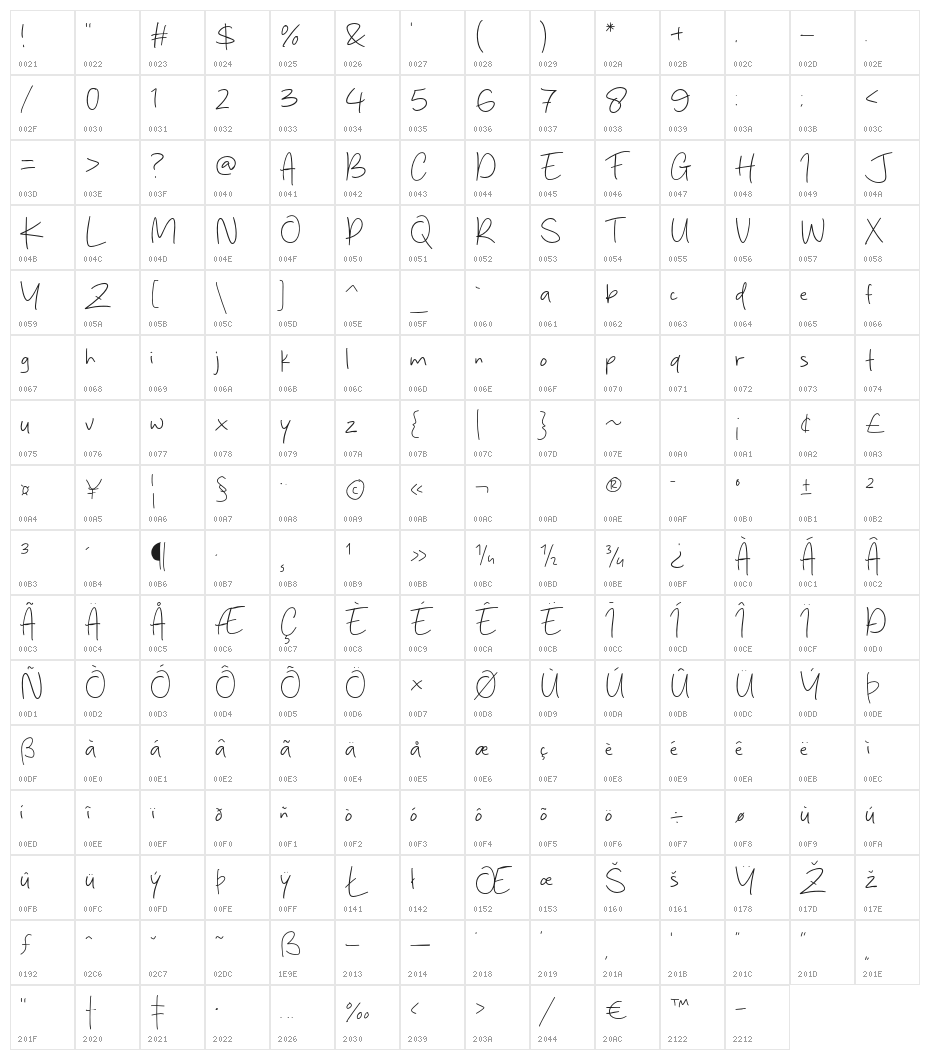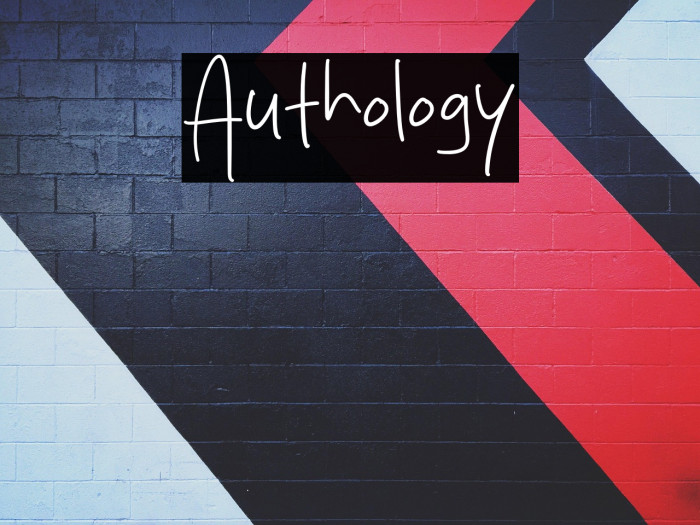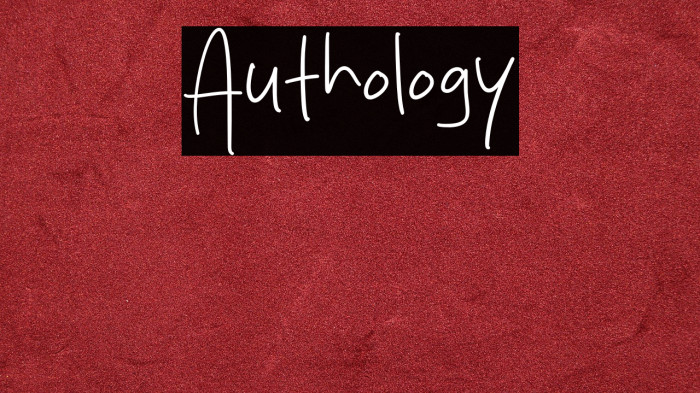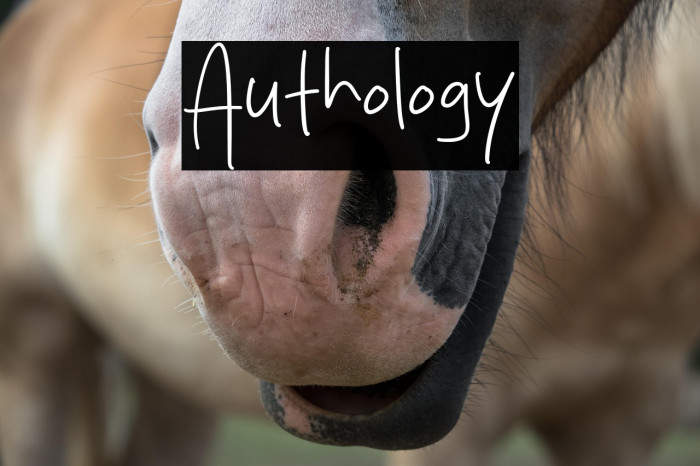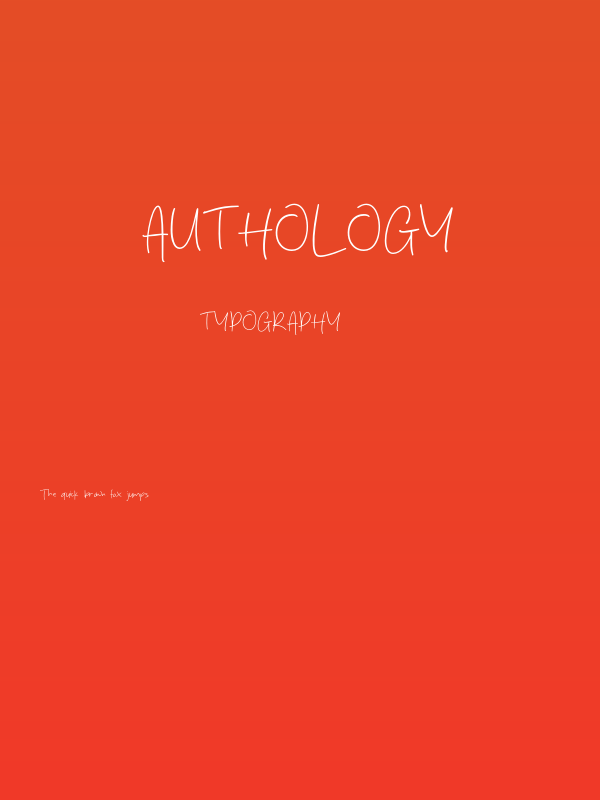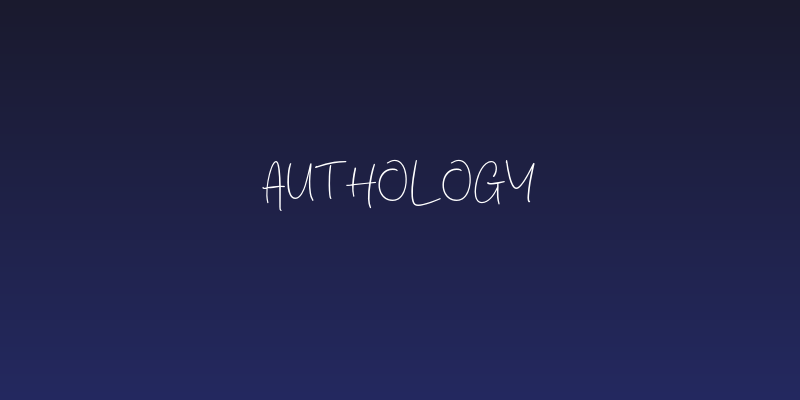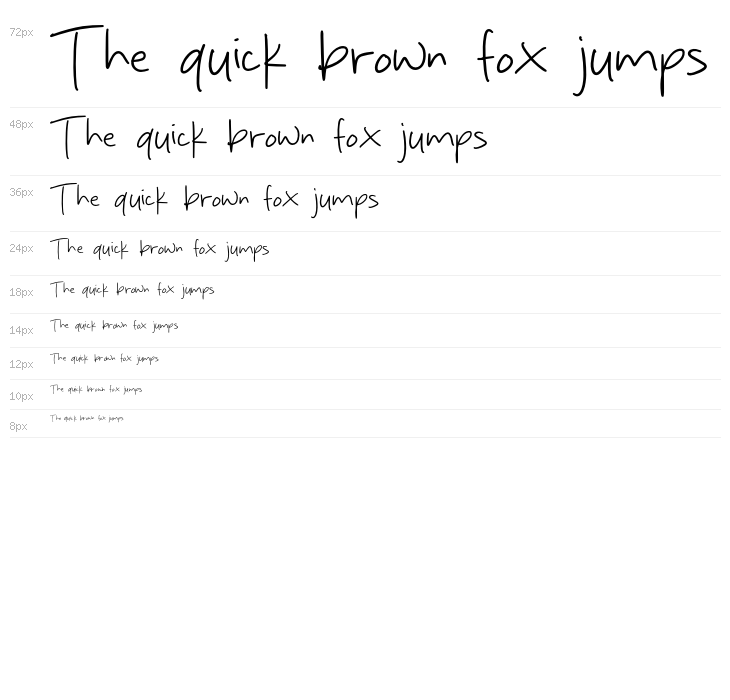
Authology Font
Authology Description
This font features a casual, handwritten style with a playful and informal appearance. The letters are slightly slanted, giving it a dynamic and lively feel. The strokes are smooth and consistent, with a slight variation in thickness that adds to its handwritten charm. The characters are well-spaced, ensuring readability while maintaining a relaxed aesthetic. The numerals and special characters are crafted to match the overall style, making it versatile for various uses. This font exudes a friendly and approachable vibe, perfect for projects that require a personal touch.
| Overall Style | Casual, Playful |
| Use Case | Headlines, Informal text, Personal projects |
| Proposed Projects | Ideal for greeting cards, personal blogs, casual branding, and social media graphics. |